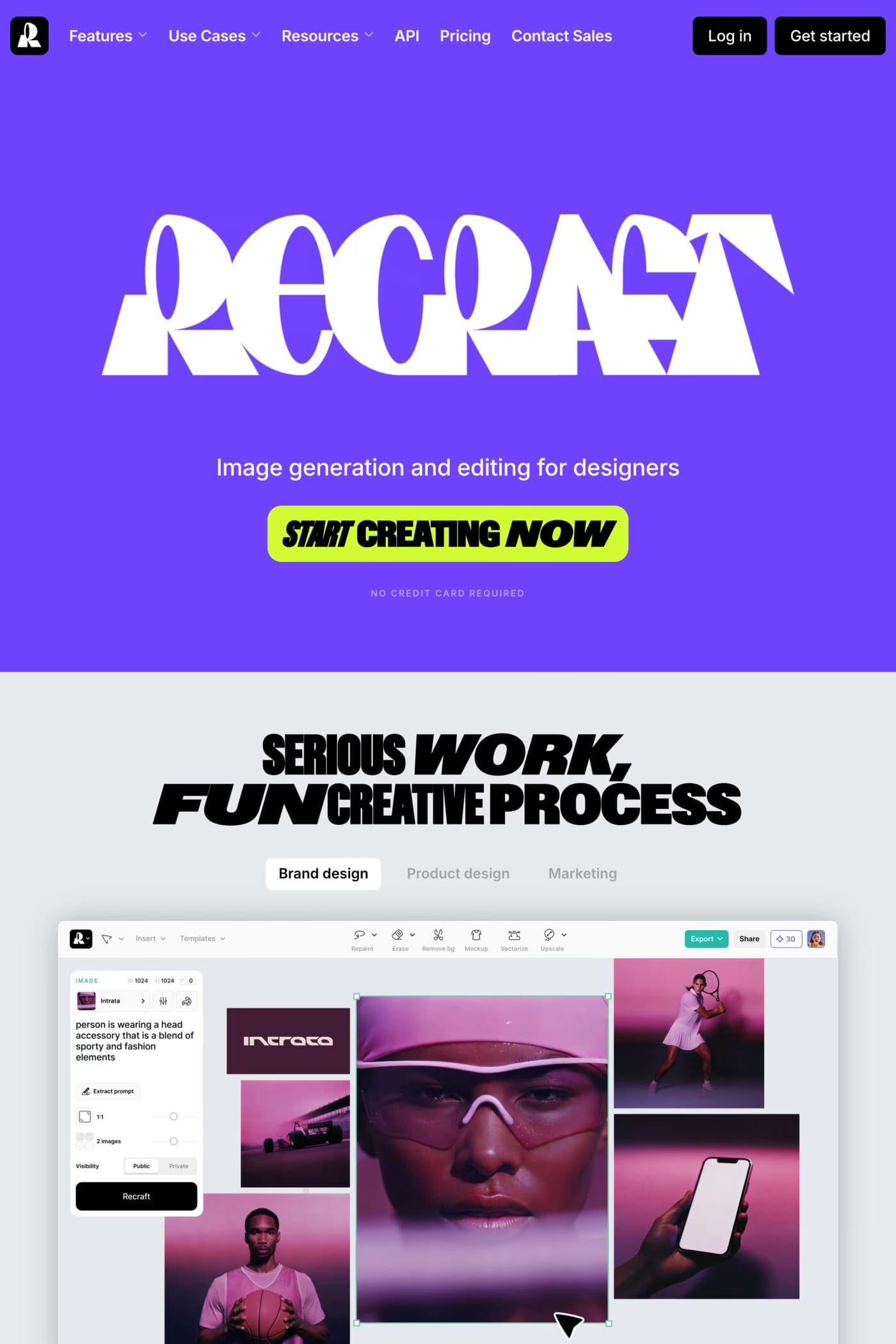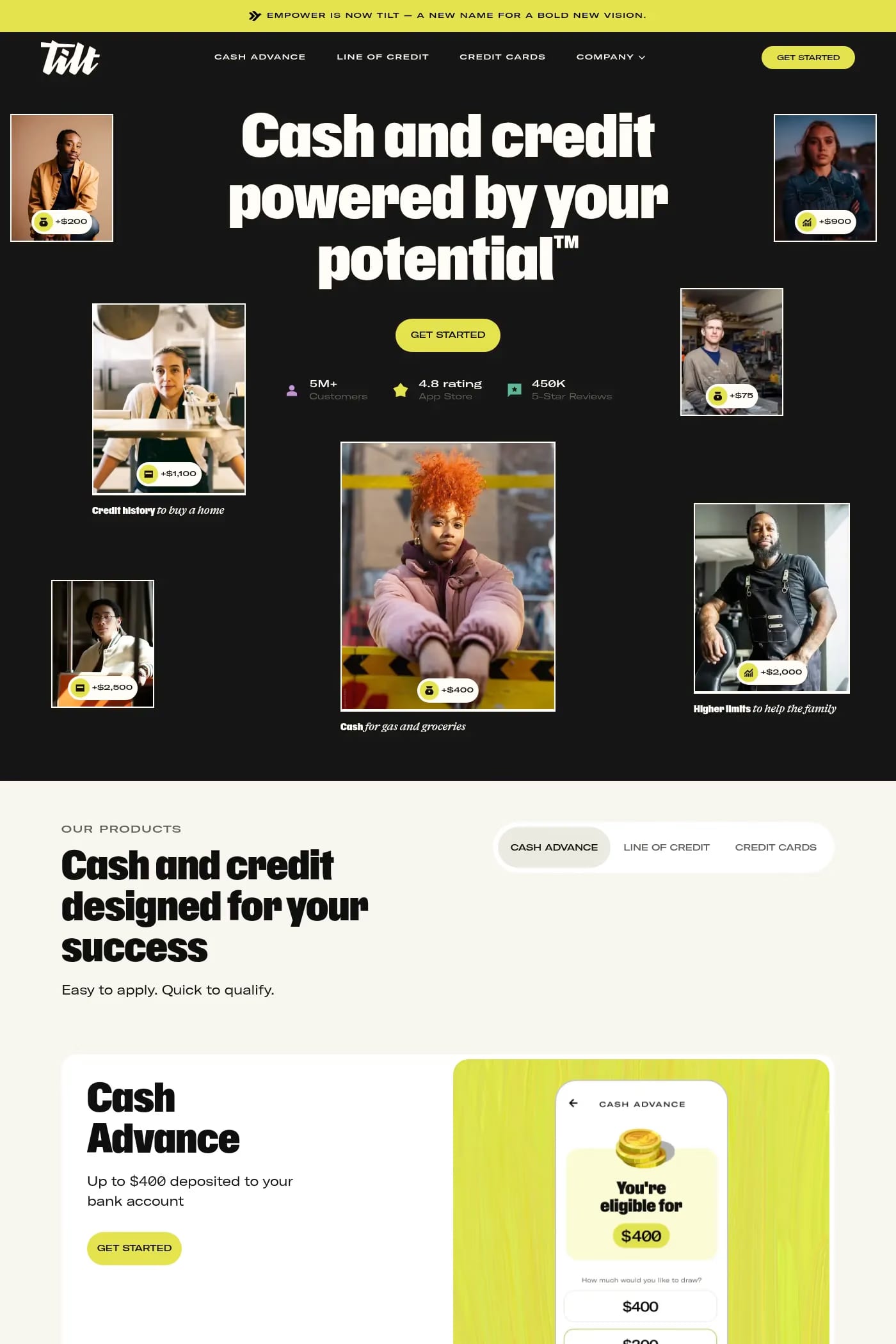
Gravity is a sans-serif typeface from Dinamo.
ABC Gravity is a one weight, 12 width headline typeface. Its many stylistic alternates allow for playful settings and super-compact title arrangements. Its initial skeleton was inspired by heavy grotesque typefaces from the ’60s and ’70s, which we worked to compress and stretch out into extreme widths.